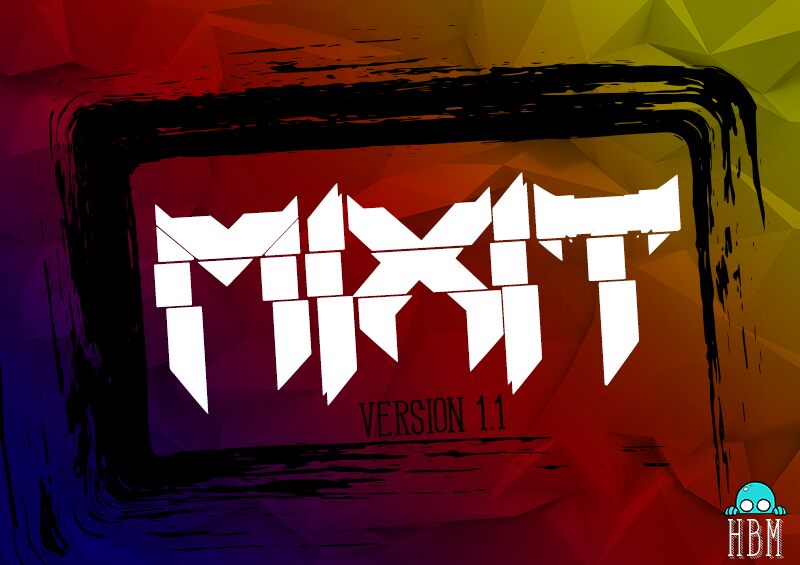
Mixit
MIXIT is a striking, modern font that exudes a bold, distorted aesthetic. Designed with an angular, glitched-out style, its sharp, Gothic-inspired characters lend a sense of danger and aggression. This font is perfectly suited for electronic music, dubstep, and glitch-inspired designs, where its unique visual appeal can add a striking, attention-grabbing element. The font's broken, fragmented appearance creates a futuristic, sci-fi-esque vibe, making it an excellent choice for digital and technology-driven applications.
MIXIT's versatility allows it to shine in a variety of contexts, from album covers to event posters, seamlessly blending visual impact with a cutting-edge, contemporary feel.
Mixit - Dubstep font created by Here Be Monsters - monsterswithin.com